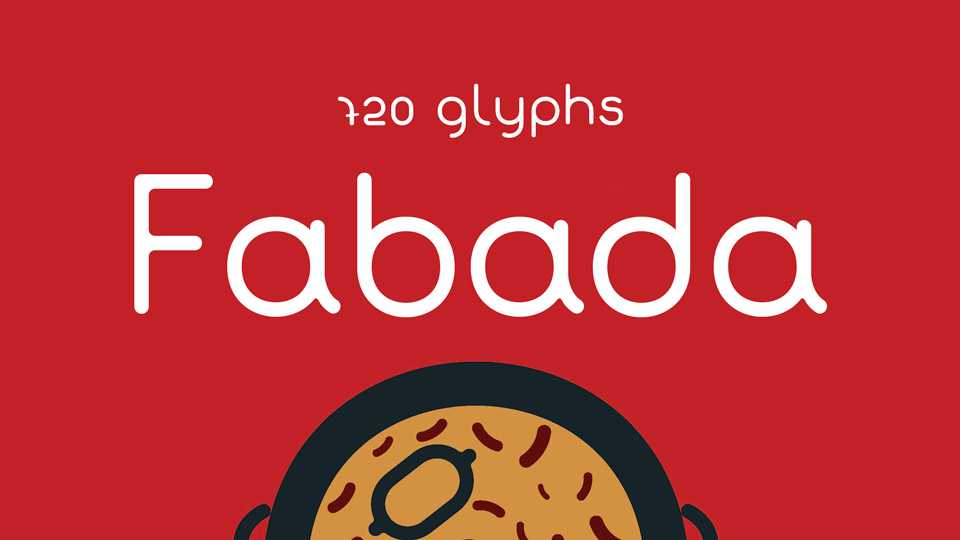
Download Fabada font, a rounded geometric typeface with smooth corners. Fabada font is suitable for headlines, banners, short texts, social media, branding, logos and more.
Designer: Fernando Haro